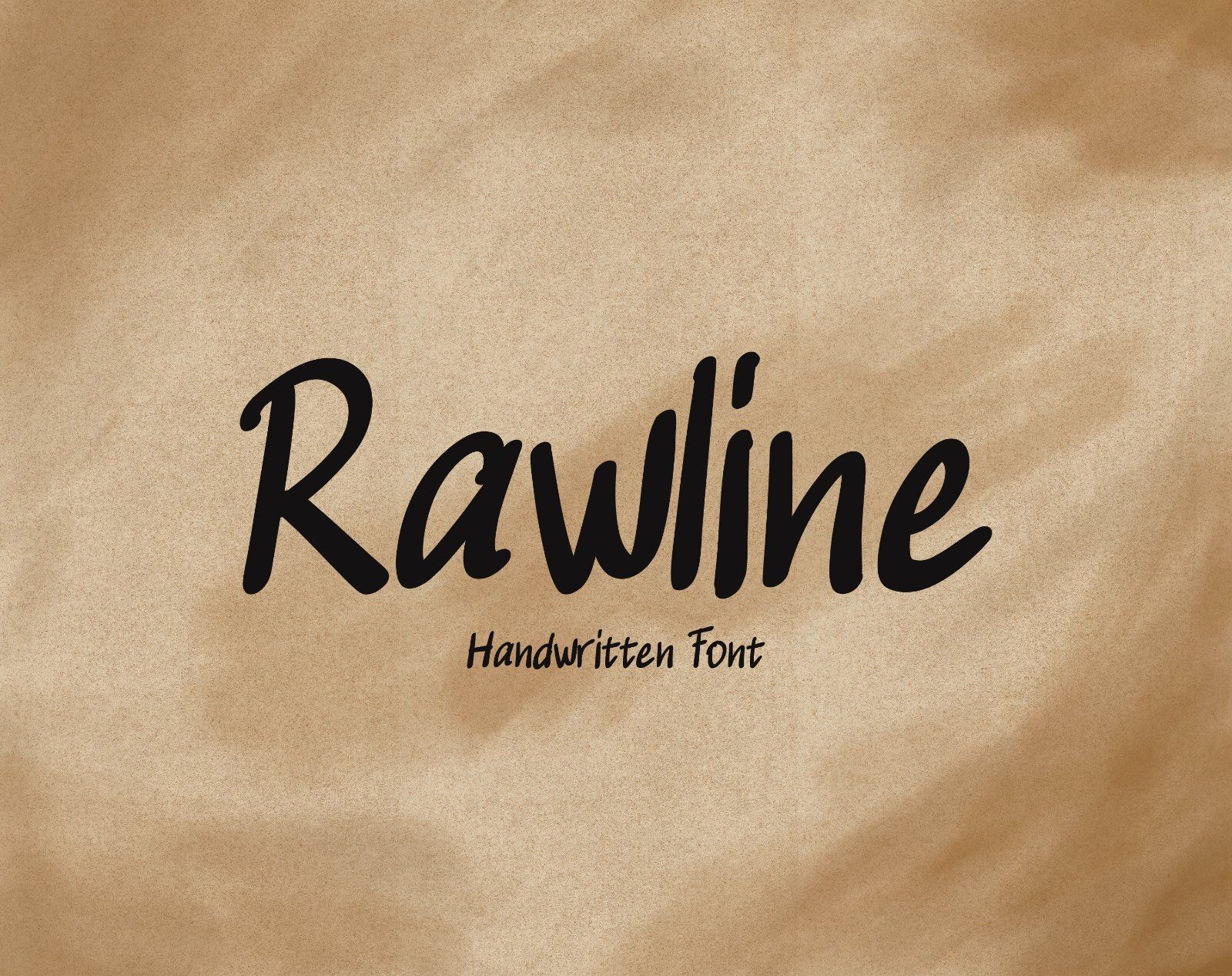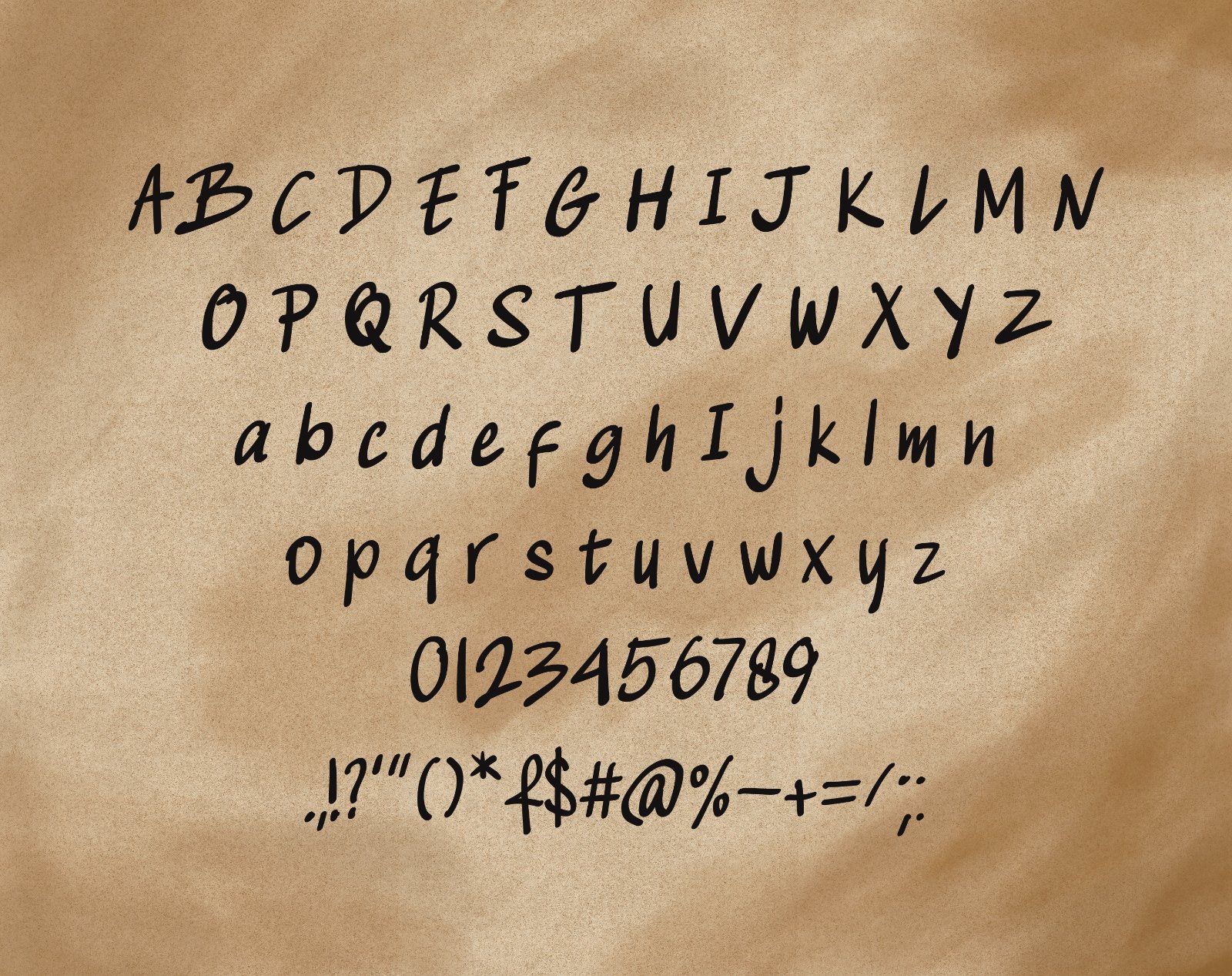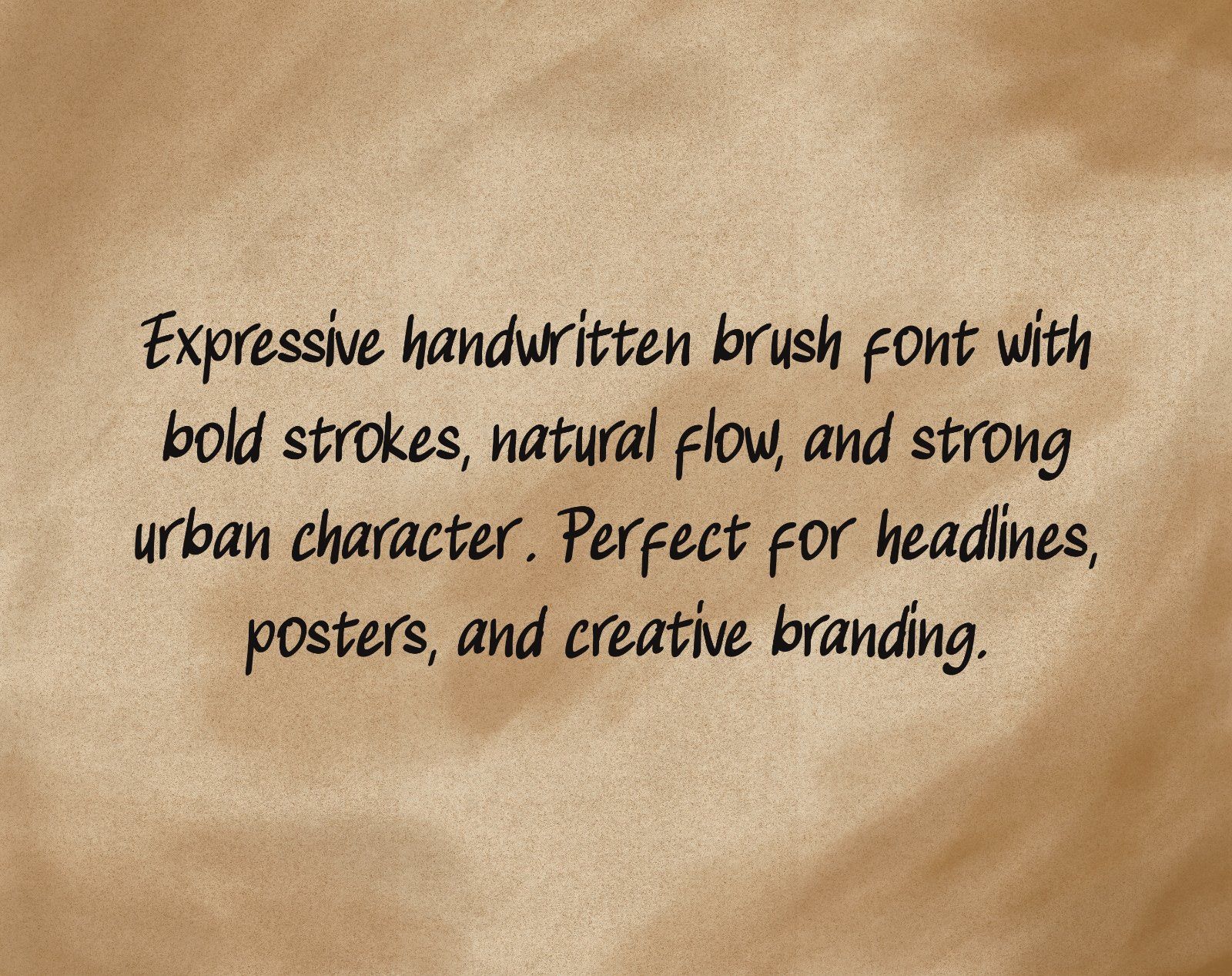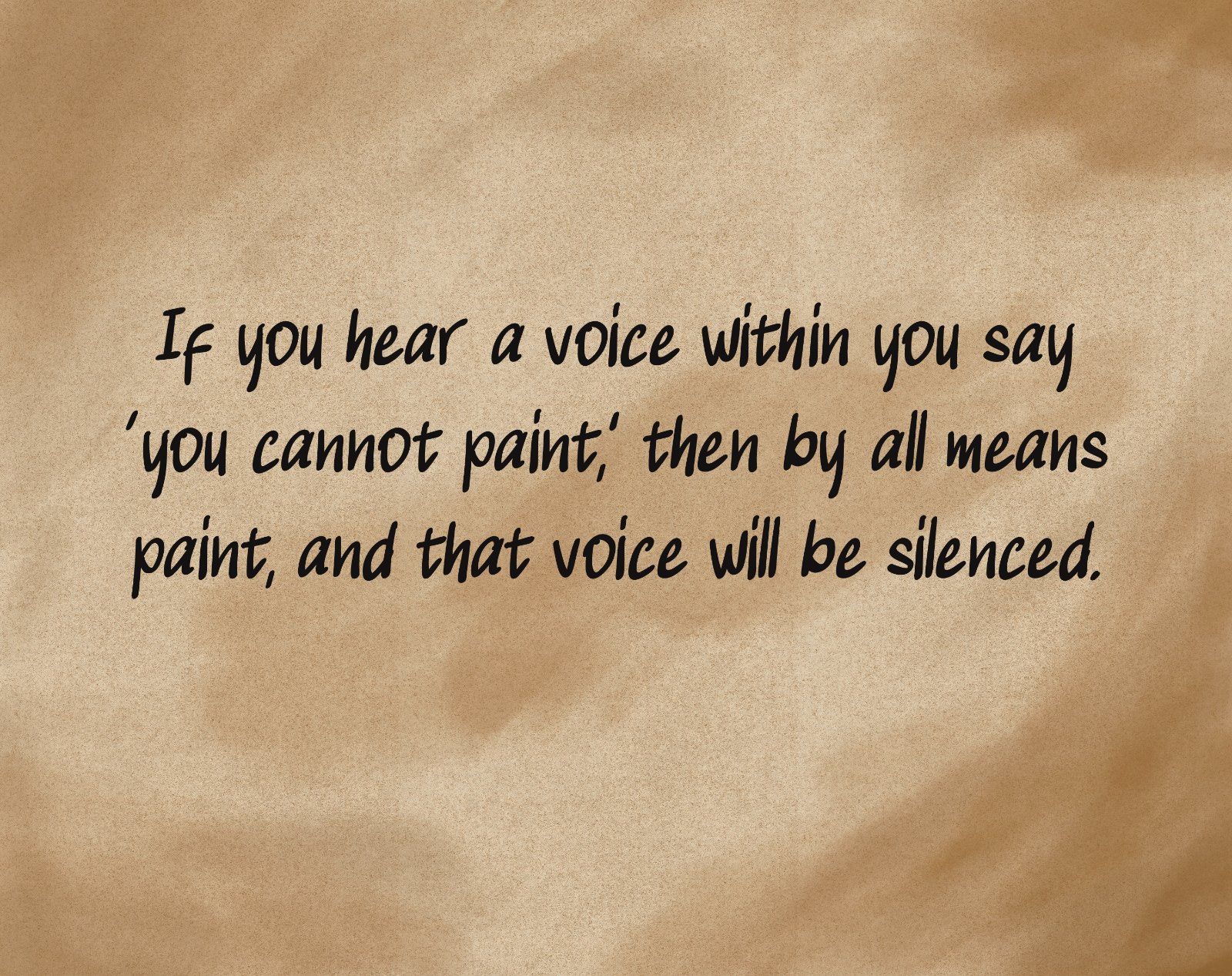
Rawline is a modern handwritten brush font with a natural, energetic, and friendly character. Its smooth strokes and casual flow make it perfect for branding, quotes, social media, packaging, logos, and creative projects that need a personal and stylish touch.